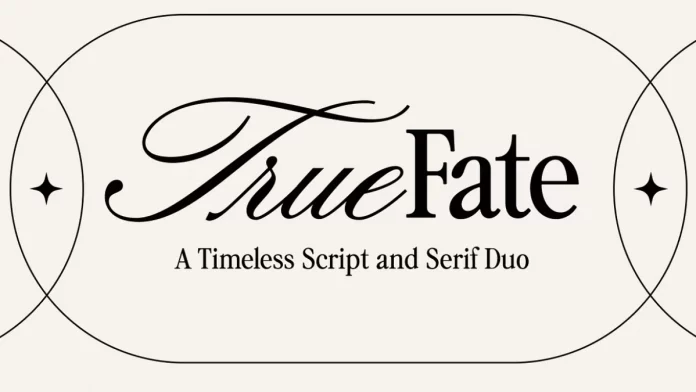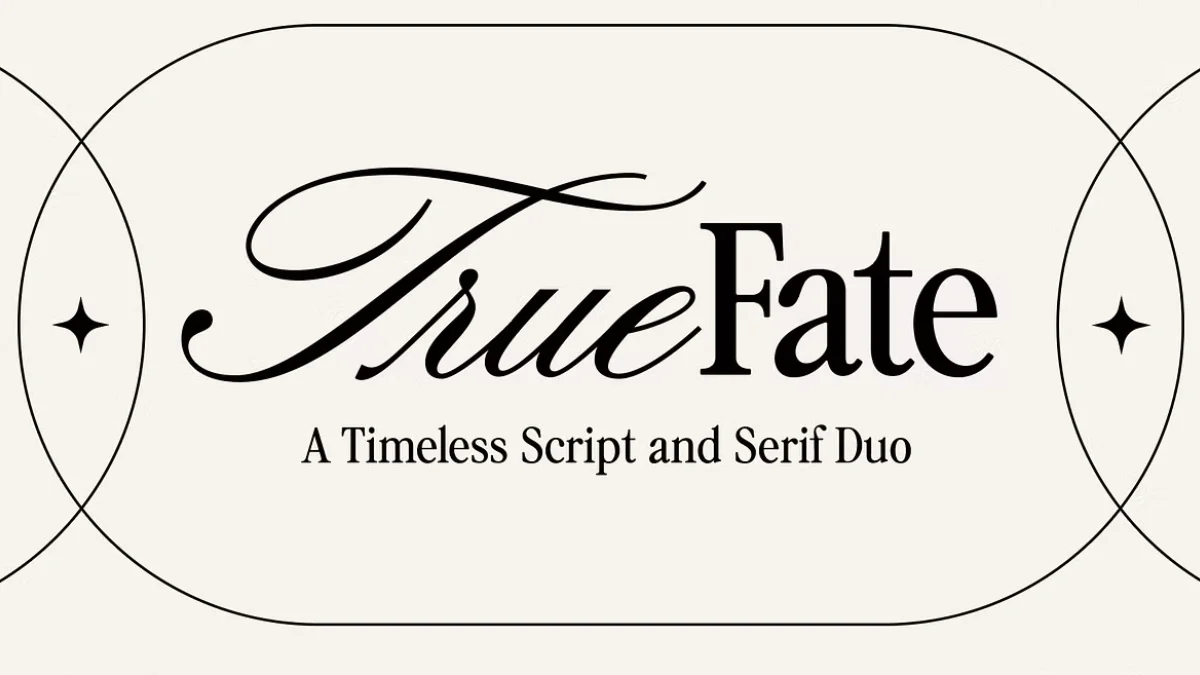
True Fate Script & Serif Font Duo: Discover Sam Parrett’s Masterstroke in Typographic Harmony
Let’s take a closer look at the True Fate Font Duo, a remarkable typeface creation by the talented Sam Parrett of Set Sail Studios. This isn’t just another set of fonts; it’s a thoughtfully designed script and serif partnership, crafted from the ground up to work in exquisite harmony. Imagine the time, the guesswork, you could save. This font combo aims to be that ideal typographic solution for your branding or print projects, offering both elegance and classic appeal in one seamless package.
The beauty of this duo lies in its inherent synergy. Sam Parrett didn’t simply pick two existing fonts; he masterfully designed True Fate Script and True Fate Serif to complement each other perfectly. This approach ensures that your projects benefit from a pairing that effortlessly contrasts yet harmonizes, creating a truly professional and captivating visual experience. Are you ready to explore what makes this duo so special?
Unveiling True Fate Script: Elegance in Every Curve
Let’s look closer at the first half of this dynamic pairing: True Fate Script. This is far more than a simple cursive font. True Fate Script is a clean, flowing calligraphy font. Its foundation rests on traditional roundhand script, a style celebrated for its clarity and grace. However, Sam Parrett has infused it with a little extra flair. What does this mean for your designs? It means you achieve a strikingly elegant and stylish modern aesthetic. Think of sophisticated wedding invitations, chic branding, or any project that calls for a touch of personal, handcrafted charm. The True Fate Font Duo truly shines when this script takes center stage for emotive expressions.
The script component of the duo is designed for impact. Each letter connects smoothly, creating an authentic handwritten feel without sacrificing legibility. It’s a delicate balance, and True Fate Script masters it beautifully. Could this be the script you’ve been searching for to elevate your next creative endeavor?
Exploring True Fate Serif: Timeless Versatility, Modern Appeal
Now, let’s turn our attention to True Fate Serif. This font draws its inspiration from nostalgic headline fonts of the past. Yet, it’s anything but dated. Sam Parrett has refined these classic influences to produce a hugely versatile and timeless serif. This isn’t just a supporting actor; True Fate Serif is a robust font in its own right. Its clean lines and balanced proportions make it exceptionally readable, perfect for body text, headlines, or sophisticated subheadings. The versatility of this serif within the True Fate Font Duo is genuinely impressive.
Consider its potential. You could use True Fate Serif for editorial layouts, professional business cards, or website body copy where clarity and a touch of classicism are paramount. It’s this adaptability that makes the serif component of these two typefaces such a valuable asset for designers. It provides a grounding, authoritative voice that pairs wonderfully with its more expressive script counterpart.
The Magic of Harmony: Why the True Fate Font Duo Works So Well
Why is finding the right font pairing often so challenging? Designers know that typefaces have distinct personalities. Sometimes, these personalities clash. Other times, they’re too similar to create any visual interest. The genius of the font combo is that this complex work has been done for you. Sam Parrett’s careful design ensures that True Fate Script and True Fate Serif possess complementary traits while maintaining their unique identities.
The script is fluid and ornate; the serif is structured and clear. This contrast is key. It creates visual hierarchy and draws the eye. Yet, they share an underlying aesthetic – a certain refinement and quality – that makes them feel like they were always meant to be together. Using these typefaces means you’re not just getting two high-quality fonts; you’re getting a pre-packaged typographic solution that guarantees a cohesive and polished look. Doesn’t that sound like a designer’s dream?
Beyond the Pair: Using True Fate Script and Serif as Standalones
While this typeface combo is celebrated for its pairing perfection, it’s important to remember that both True Fate Script and True Fate Serif are strong standalone fonts. Each comes with a full set of upper and lowercase characters, punctuation, and numerals. This means you have incredible flexibility.
Imagine using the script on its own for a striking logo or a signature-style quote graphic. Its inherent elegance carries a design single-handedly. Similarly, the serif can anchor an entire website with its readability and classic charm, or it could be the primary font for a beautifully typeset book. The ability to use them separately further enhances the value offered by the True Fate Font Duo package, providing solutions for an even broader range of design challenges. Have you thought about projects where just one of these remarkable fonts could be the star?
Meet Sam Parrett: The Visionary Behind True Fate
Understanding the creator often sheds light on the creation. Sam Parrett, the designer of these typefaces, is renowned in the typography world for his high-quality, user-friendly fonts. His work often features a blend of modern trends with timeless appeal, and True Fate is a prime example of this philosophy. Designers who follow Parrett’s work will recognize his commitment to detail and his knack for producing fonts that are not only beautiful but also incredibly practical. The thoughtful development of the True Fate Font Duo reflects this dedication, providing a tool that empowers designers to create with confidence.